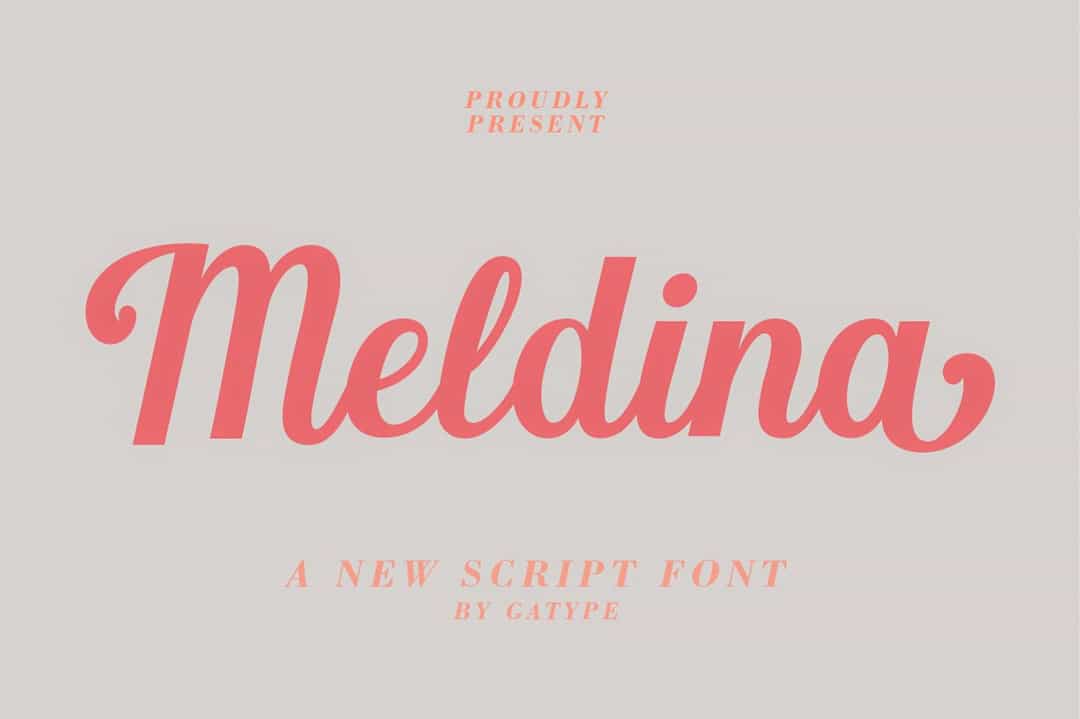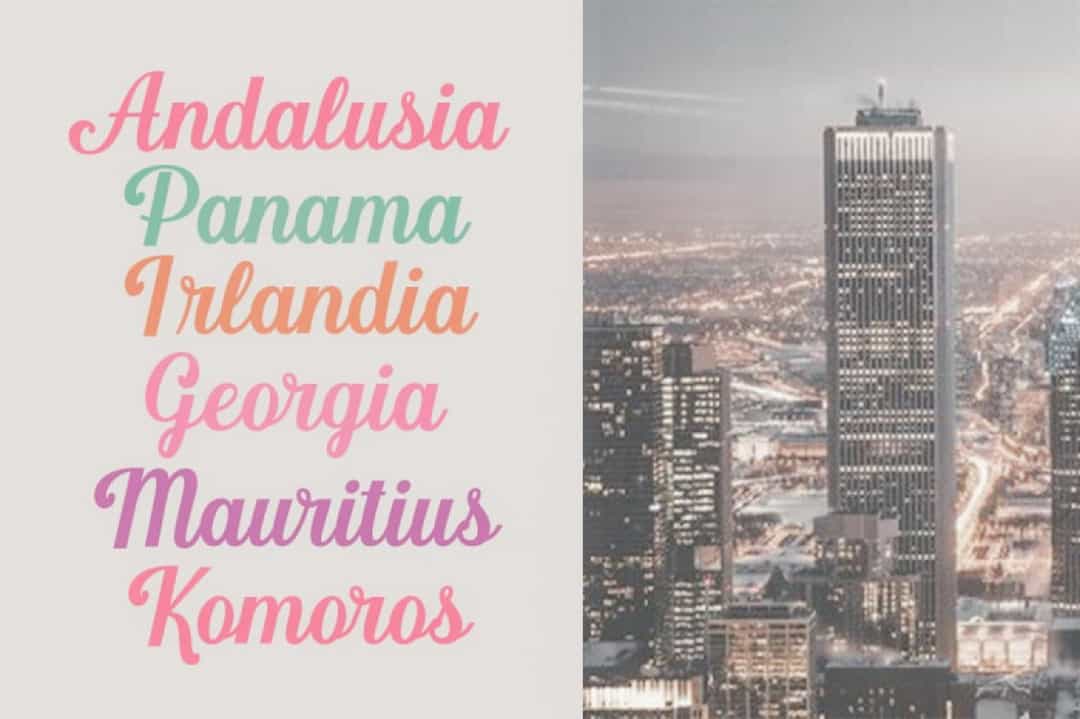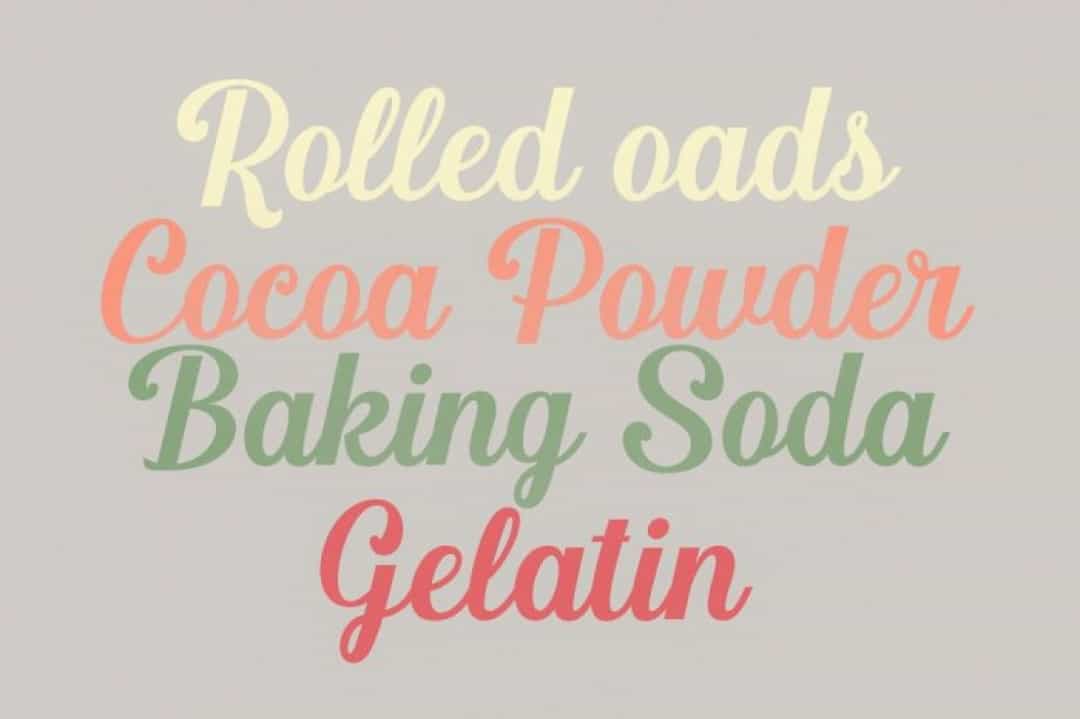
Meldina is a modern script calligraphy font designed for modern purposes. The font features simple yet beautiful strokes and can be used for multiple purposes such as logos, packaging for products wedding invitations headlines branding headlines signs labels as well as signature book covers quotes posters etc.